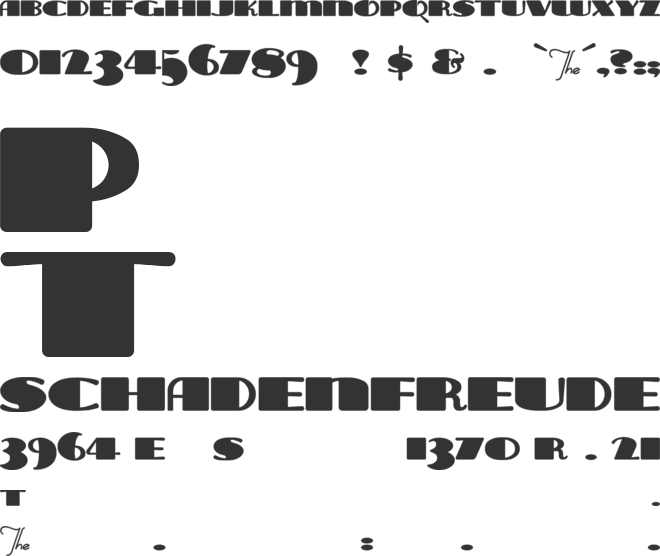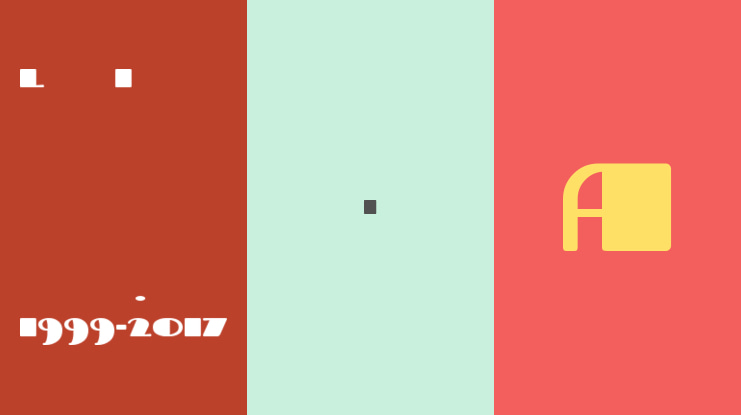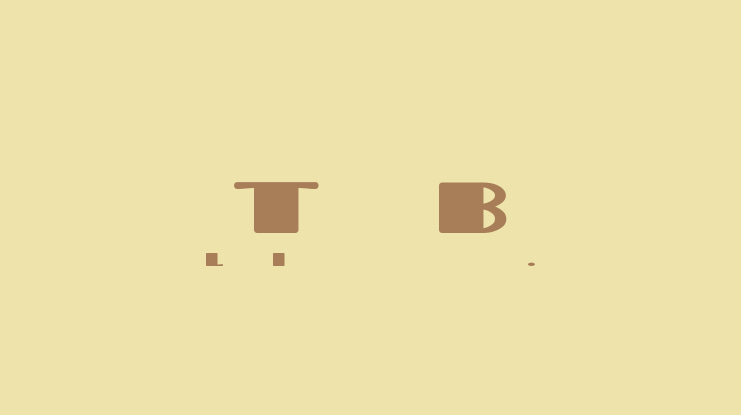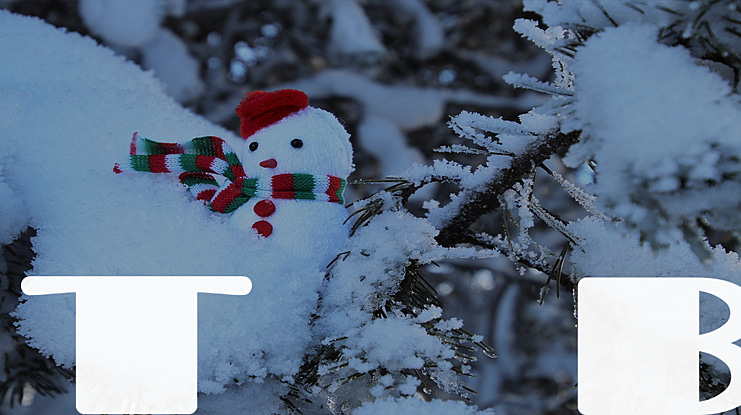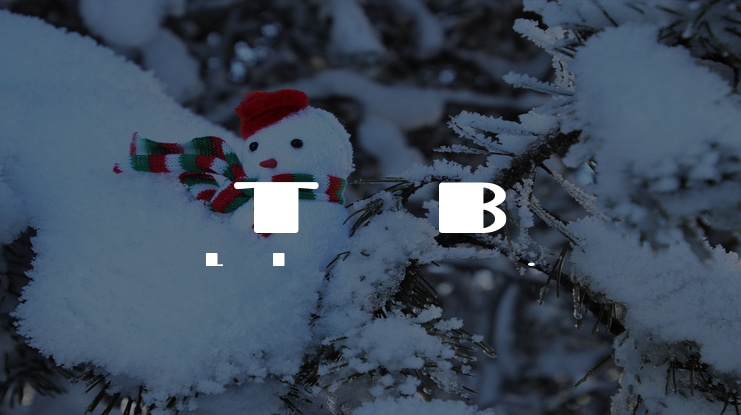
TaraBulbous Font
This fine, fat, far-out and funky font is based on an unpublished and untitled work of 1938 by type designers Paul Carlyle and Guy Oring. Suitable for any words demanding immediate and undivided attention. The name is a take-off on a costume drama film from the 50’s starring Yul Brynner.